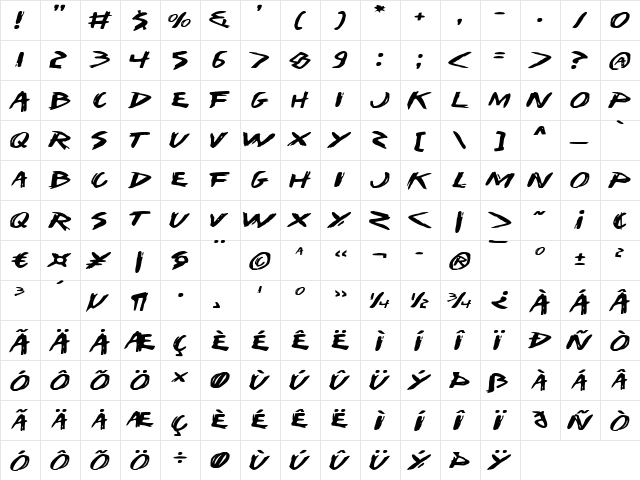
I Want My TTR! Expanded Expanded
I Want My TTR! Expanded is a composed and adaptable typeface that performs quietly and consistently across a wide range of design contexts.